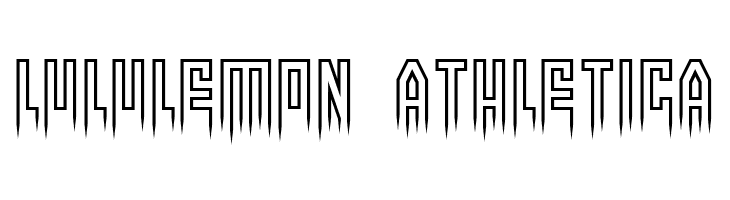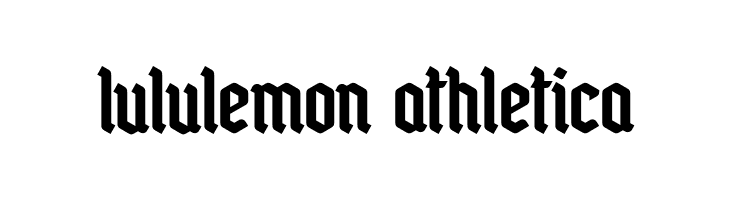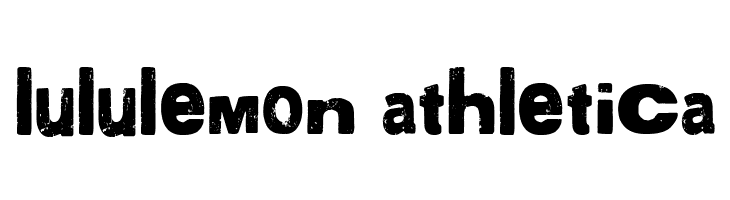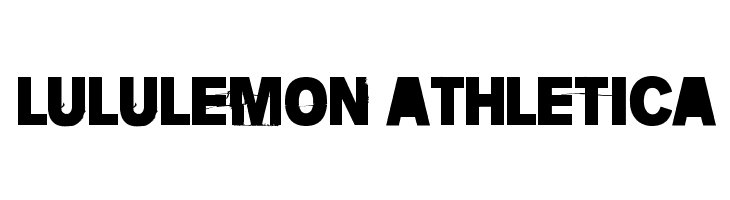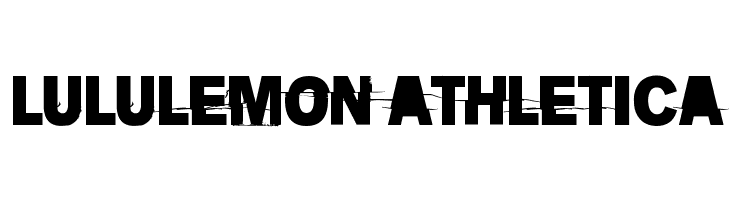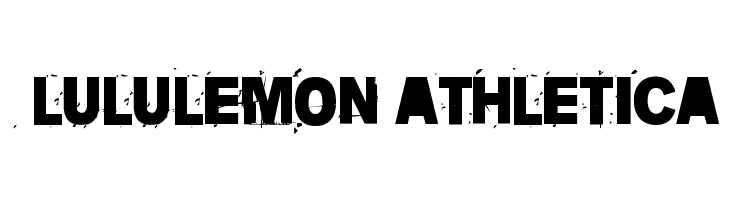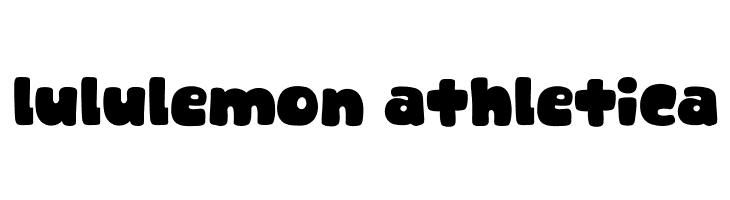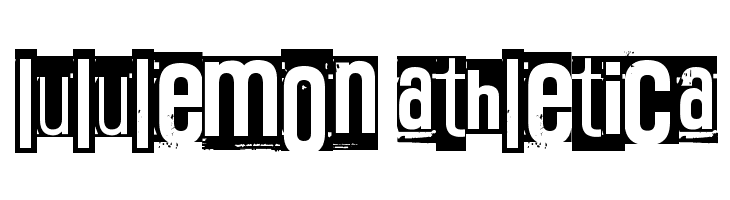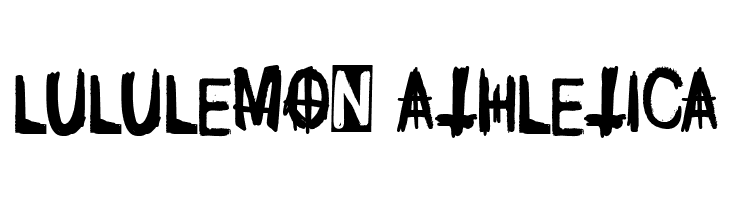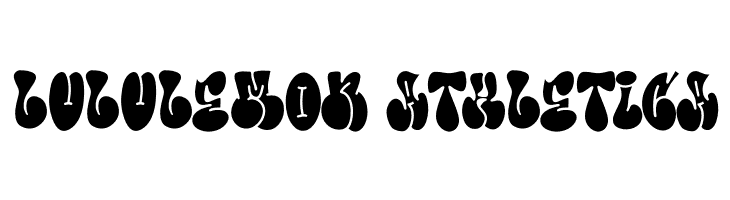
A playful, squiggly font with a hand-drawn, energetic style.
A playful, stitched-style font with a handcrafted appearance.
A bold, striped font with a playful and dynamic appearance.
A fluid and elegant cursive script font with interconnected letters.
A bold, modern font with a diagonal striped pattern and geometric design.
A bold, playful handwritten font with a casual and friendly appearance.
A bold, playful handwritten font with rounded, graffiti-like letterforms.
A decorative font with bold outlines and intricate internal patterns, perfect for creative projects.
A playful, hand-drawn font with bold, rounded characters.
A delicate, flowing handwritten font with thin, elegant strokes.
A bold, cursive script font with elegant, flowing letterforms.
A bold, flowing script font with elegant, cursive letterforms.
A delicate, elegant handwritten script with thin, flowing lines.
A bold, Gothic-inspired font with intricate details and sharp serifs.
A bold, decorative font with high contrast and vintage flair.
A bold, brushstroke-style font with a raw, artistic appearance.
A dynamic, brush-stroke style font with a rough, textured appearance.
A dynamic, brush-stroke italic font with a modern and edgy appearance.
A dynamic, brush-stroke font with an edgy, textured appearance.
A bold, dynamic script font with angular uppercase and fluid lowercase letters.
A bold, playful handwritten font with an artistic, irregular style.
A calligraphic, handwritten-style font with artistic flair.
A bold, outlined font with a modern and clean design.
A bold, angular script font with a dynamic and energetic style.
A bold, flowing script font with elegant cursive letterforms.
A bold, italicized font with a dynamic and futuristic style.
A playful, rounded font with bold, smooth curves and a friendly appearance.
A bold, geometric font with a futuristic and industrial design.